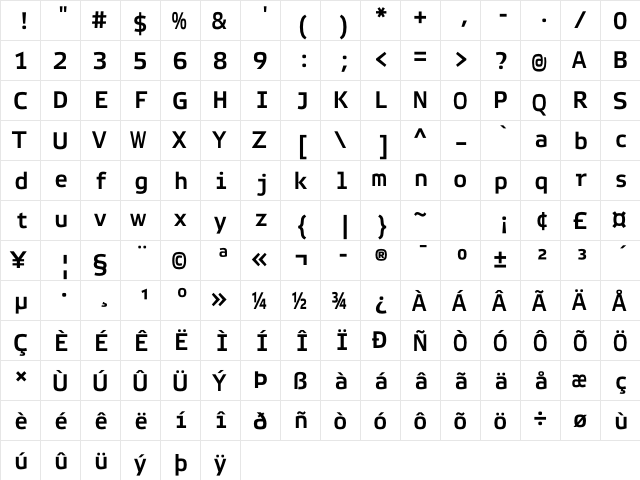
Elektra Mono Pro Bold
Design Context for Elektra Mono Pro Typeface
Elektra Mono Pro uses fixed-width spacing throughout, giving it the structured, systematic character associated with coding environments and technical documentation. Its bold stroke weight gives it real presence on the page.
Pro Tip: Pair Elektra Mono Pro with a proportional sans for UI contexts where code-style labels and regular body copy need to coexist.